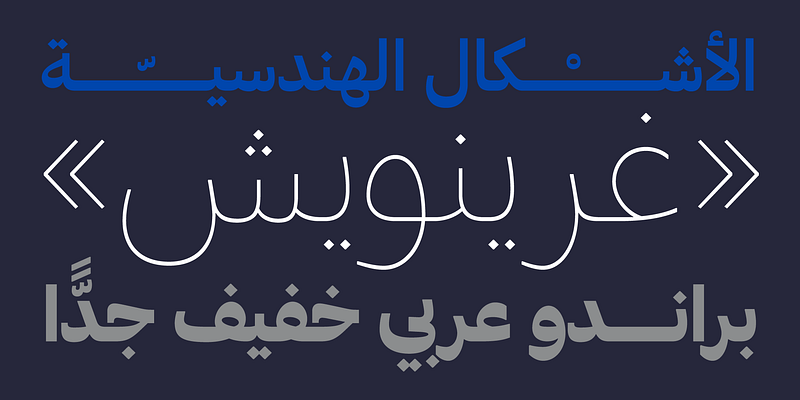
The Brando series is a comprehensive system offering support for Extended Latin, Cyrillic, and Arabic alphabets. A contemporary slab serif with humanist proportions, Brando balances modern, classical, and Egyptian characteristics. Added two years later, Brando Sans features the same qualities of its seriffed sibling with analogous weights and matching italics for perfect pairing. With a Cyrillic and Latin Extended character set that supports over 140 languages, small caps, an extended ligature set, various figure styles, fractions, and mathematical symbols, both Brando and Brando Sans are uniquely qualified to tackle demanding contemporary typography. Brando Arabic applies its Latin counterpart’s thoughtful interaction of hard and soft characteristics to the conventions of the Naskh script. Brando Arabic supports Arabic Persian and Urdu and includes the Latin-1 character set for support of over forty Latin-based languages to facilitate multilingual typesetting. Bold Monday, 2014 - 2019.